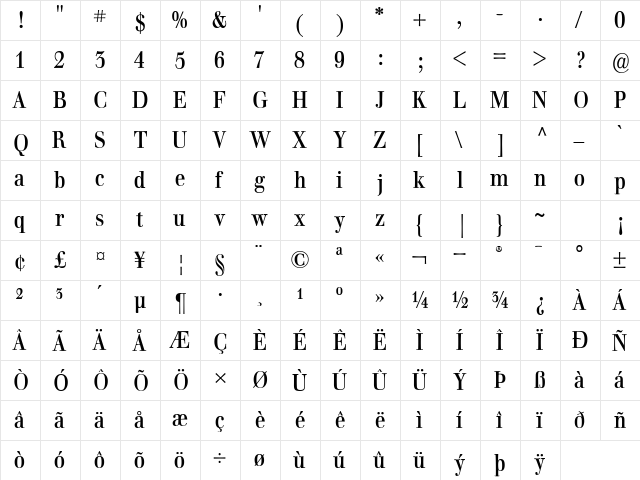
Walburn Regular
Design Context for Walburn Typeface
Walburn takes a measured approach to typography — its balanced proportions and neutral character make it a reliable workhorse for both digital and print work.
Pro Tip: Use Walburn in both headline and body roles to test its range before committing to a single application.